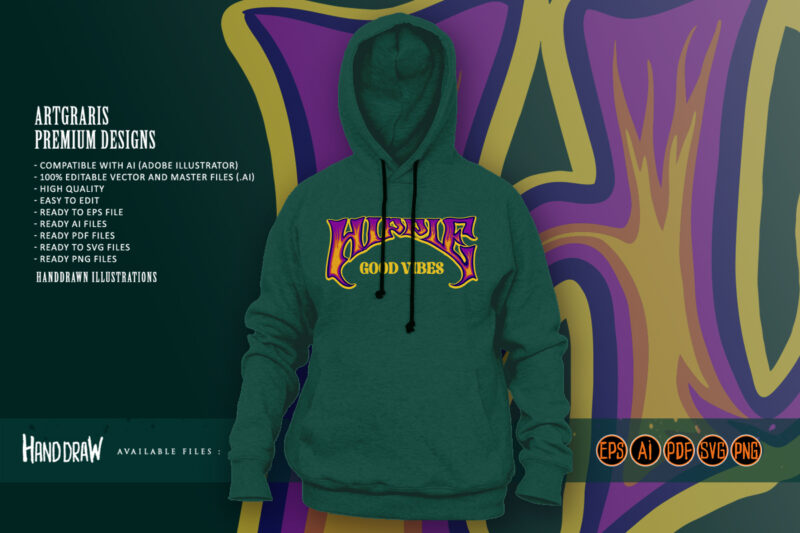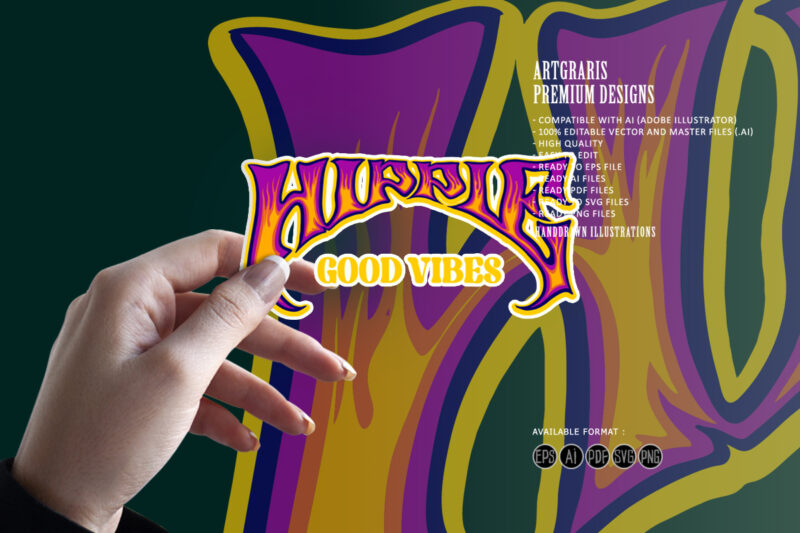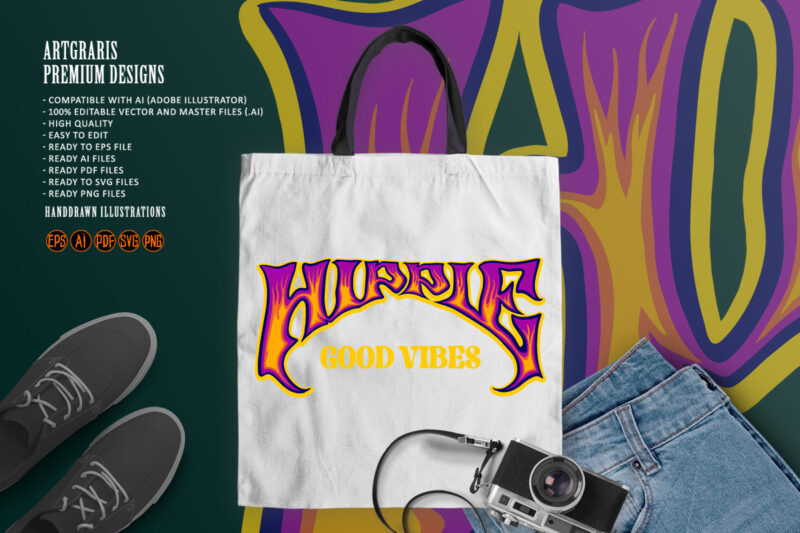
Hippie words typeface psychedelic style font graphic t shirt
Vector illustration Hippie words typeface psychedelic style font. Suitable for various purposes, such as Illustration on Merchandise T-shirts, Tote Bags, stickers, banners or Decorations, greeting, Postcards, flyers, posters, and other design products.